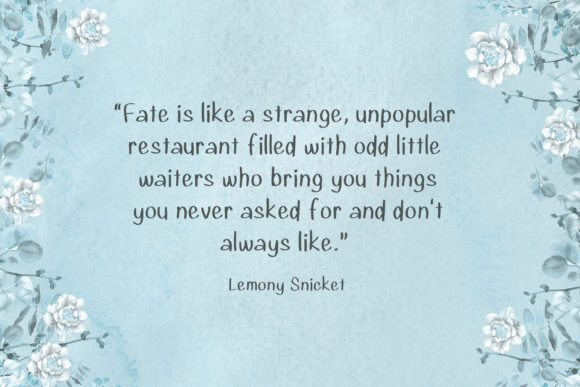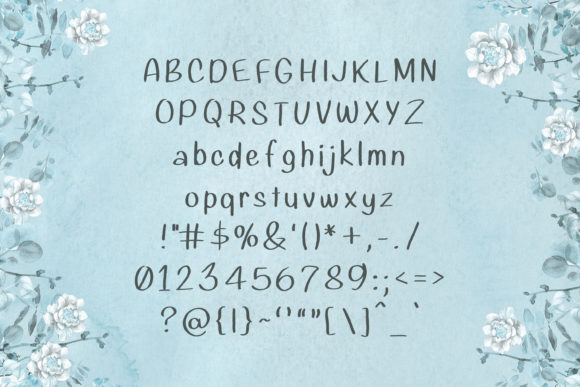
Introduction to Holly Trolly Font
Holly Trolly embodies fun, quirkiness and authenticity.
Its casual charm makes it appear wonderfully down-to-earth, readable and, ultimately, incredibly versatile This versatility will appeal to a wide range of crafty ideas, from letterheads and titles, to stationery.
Key Features of Holly Trolly Font
Why Choose Holly Trolly Font?
Holly Trolly Font offers exceptional quality and versatility, making it a valuable addition to your design toolkit. Whether you’re creating for personal projects or commercial use, Holly Trolly Font delivers professional results.